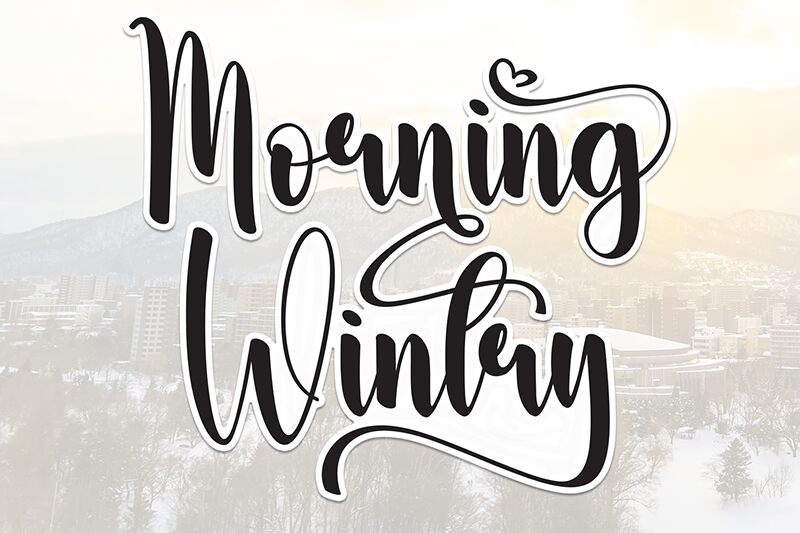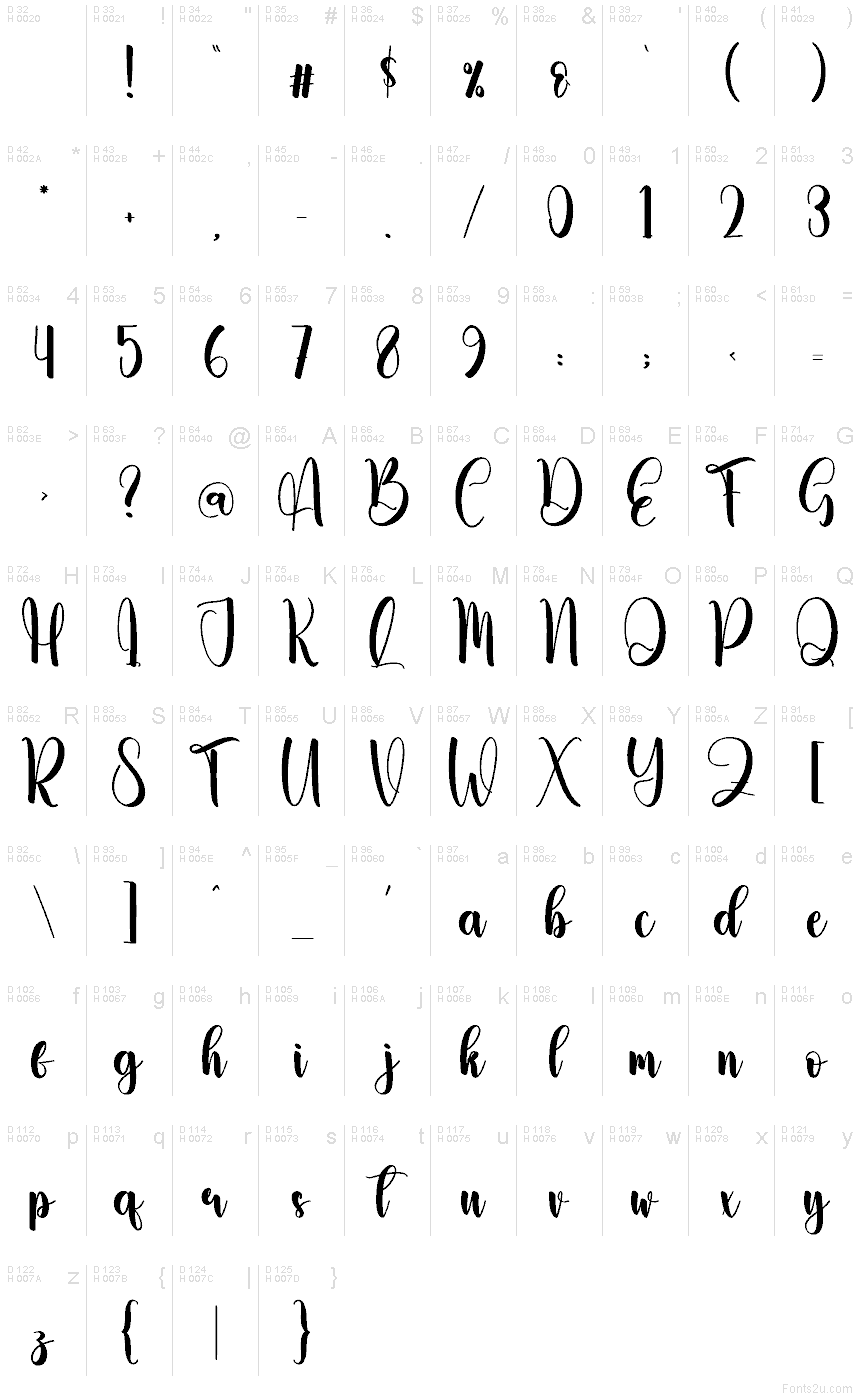
Morning Wintry
Morning Wintry font by Andi Moz is a free calligraphy font inspired by the fluid motion of handwriting. Its creative and elegant form displays an easy-going and casual personality. The romantic feel offered with its artistic flair allows contemporary applications, especially those that involve a female touch to glow like never before.
Let this charming typeface transform your wedding invitations, branding designs, blog websites, and social media covers into more dashing ones. Future typography can also be in business cards, campaigns, and even printed magazines or books that need that distinguished effect on words!